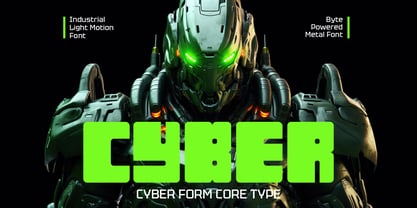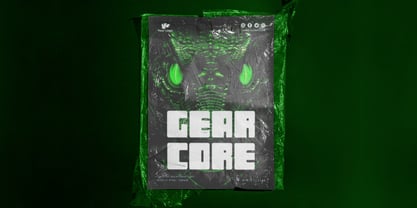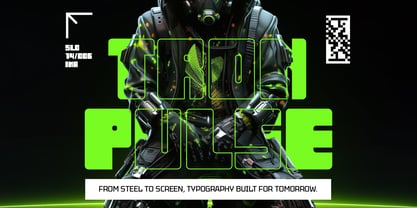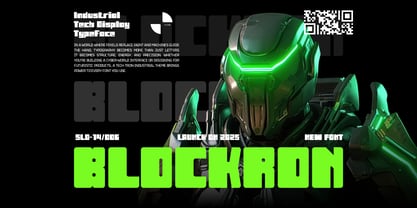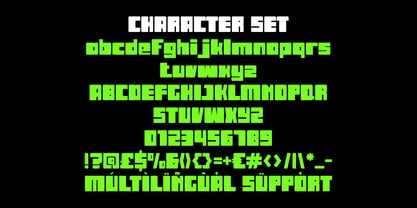
Blockron
by Putracetol
The Blockron Font Family was designed by Putra Novembria Candra Kusuma and published by Putracetol. Blockron contains 1 styles.
Blockron Industrial Tech Display Font embodies the fusion of digital precision and mechanical strength. Each character is designed with bold, blocky proportions that emphasize structure and solidity. The square forms with subtly rounded edges give it a mechanical yet modern rhythm, balancing sharp geometry with visual smoothness. This font stands tall and heavy, reflecting industrial confidence and futuristic aesthetics. Its even stroke weight and angular construction make every letter feel engineered for high-tech performance. Blockron Industrial Tech Display Font captures the essence of cyber-industrial design — strong, minimal, and visually commanding. Perfect for logo design, branding, posters, and film titles, this typeface delivers power and presence to every project. It fits perfectly into sci-fi themes, tech campaigns, gaming visuals, or futuristic product branding. Its bold geometry makes it ideal for striking headlines, industrial packaging, and digital interfaces that need a modern edge. The typeface’s commanding presence adds depth and authority to any composition. Whether used in entertainment, advertising, or corporate tech branding, Blockron Industrial Tech Display Font gives every design a high-impact futuristic identity. Built for creators who dare to design beyond limits, it’s where industrial strength meets cyber precision.